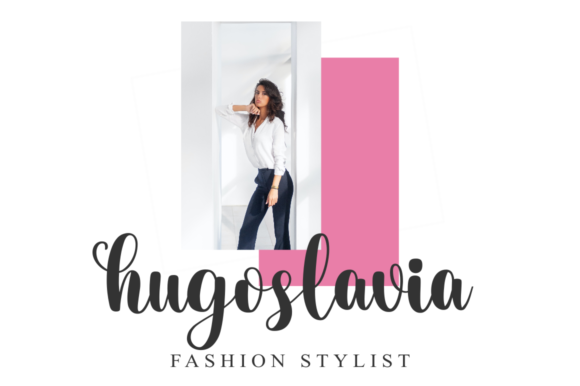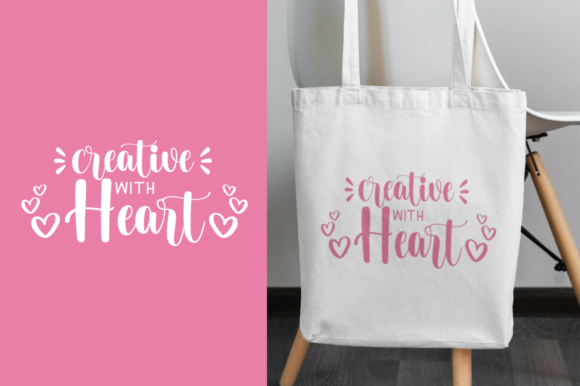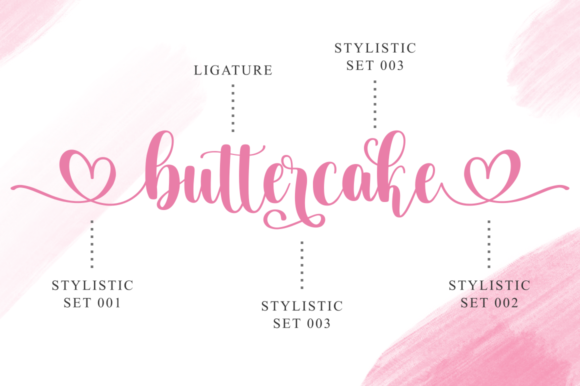
Introduction to Maglina Font
Maglina is a chic, refined script font that emanates sophistication and elegance.
Its stylish alternates and ligatures make this font the perfect match for any project Maglina is PUA encoded which means you can access all of the glyphs and swashes with ease.